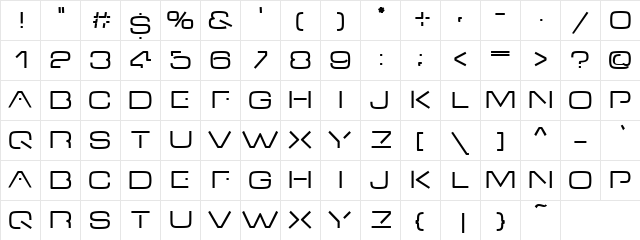
V-Dub Regular Free Font
V-Dub Regular
Design Context for V-Dub
V-Dub is a composed and adaptable typeface that performs quietly and consistently across a wide range of design contexts.